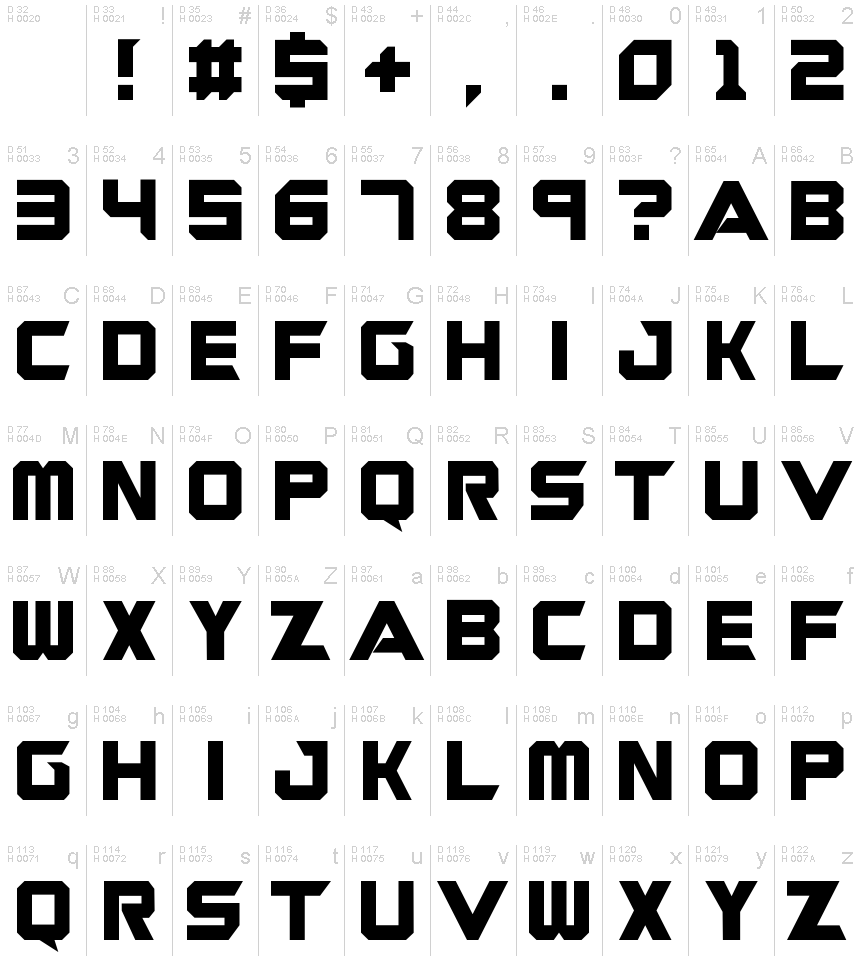
Bshark
Bshark is a bold, technologically-inspired display font crafted by BsharkFonts. Its striking, angular letterforms exude an air of futuristic sophistication, making it a captivating choice for attention-grabbing headlines, branding, and digital interfaces. The font's powerful presence and distinctive aesthetic evoke a sense of dynamism and innovation, making it a compelling option for design projects seeking to convey a cutting-edge, modern vibe.
Bshark's versatility allows it to shine in a variety of contexts, from sleek product packaging and dynamic event posters to impactful website headers and cutting-edge app interfaces. Its bold, techno-inspired character lends itself well to applications requiring a bold, attention-grabbing typographic treatment, such as in the realms of technology, finance, or contemporary art and design.